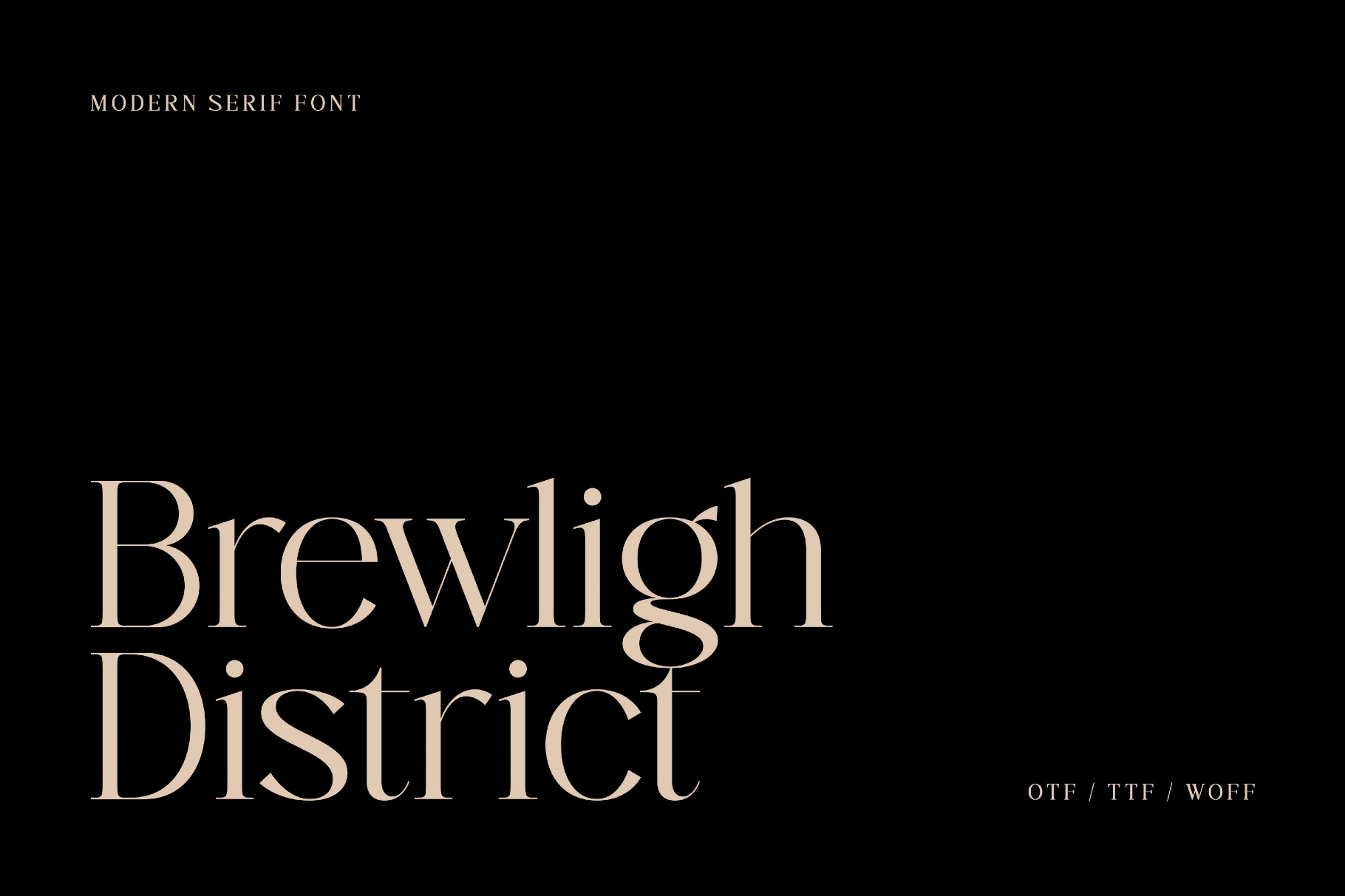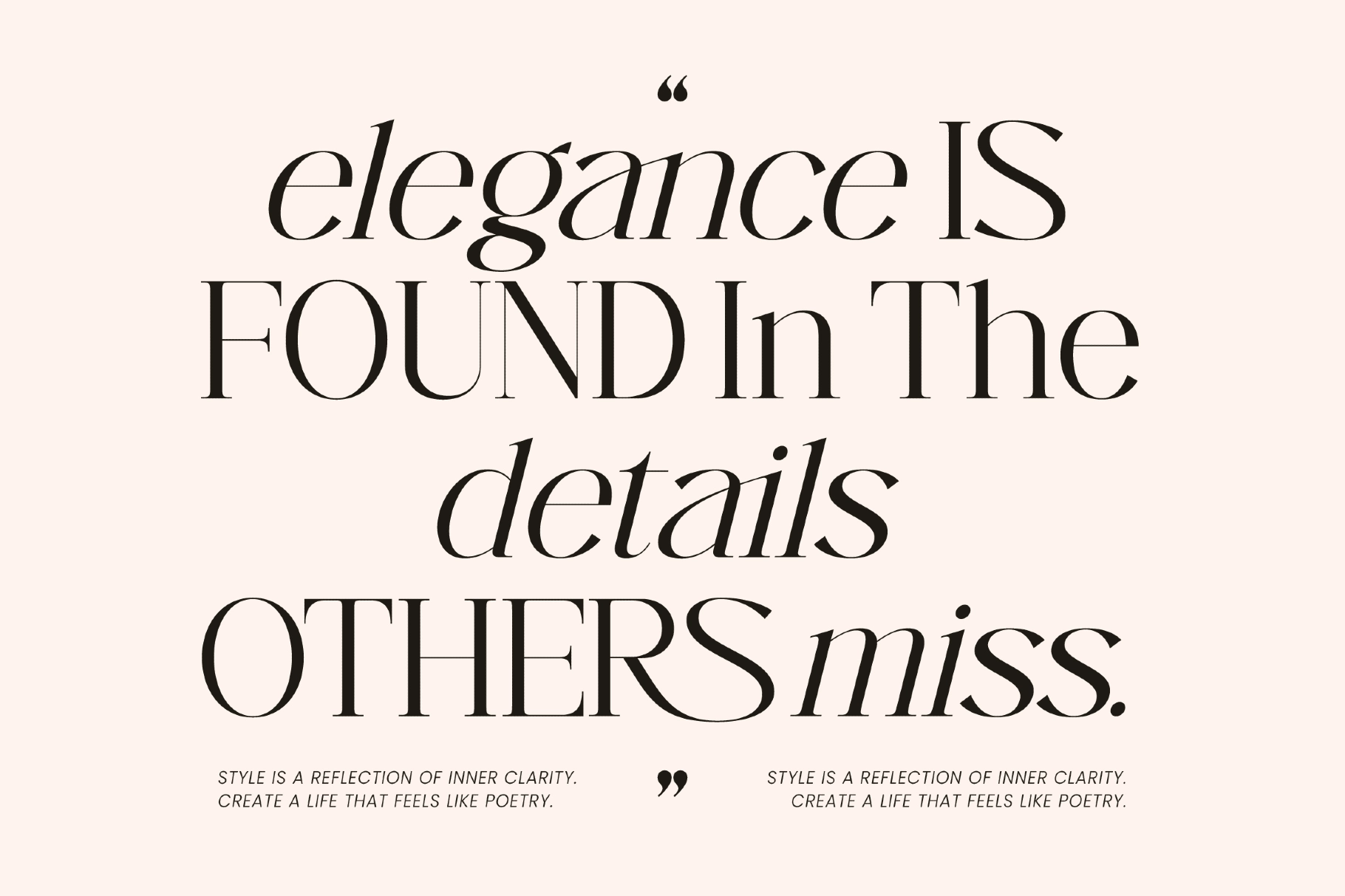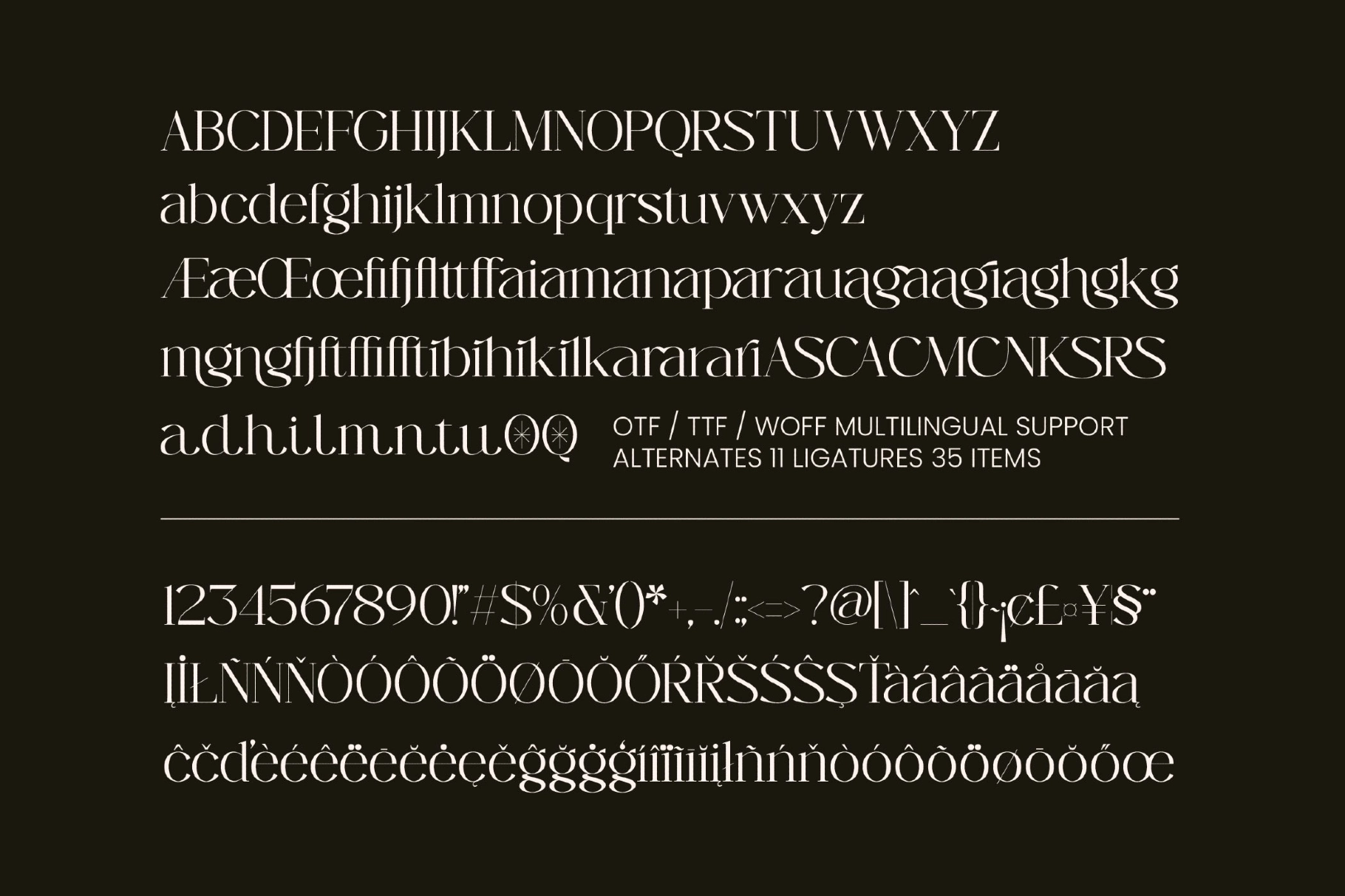
Brewligh District - Elegant Serif Font
Brewligh District is an elegant serif font built on tall ascenders, narrow bowls, and a sharp thick-thin stroke shift. The regular cut stays upright and precise, and the italic shifts into a calligraphic slant with looser joins and rounder terminals.
The pairing works for editorial mastheads, fashion and beauty branding, packaging labels, logo lockups, and magazine spreads, with the italic reserved for pull quotes, taglines, and signature details.
- Regular & Italic styles;
- uppercase & lowercase;
- numerals, punctuation & symbols;
- 35 ligatures (standard & discretionary) and 11 stylistic alternates;
- fractions & superscript figures;
- 376 glyphs total